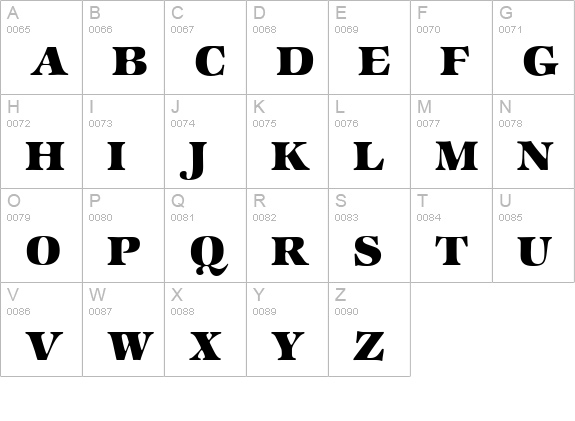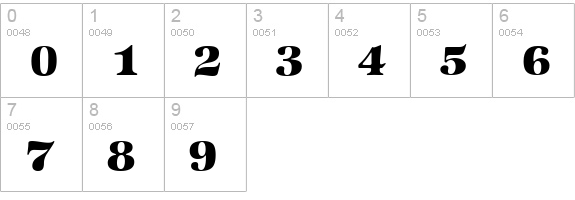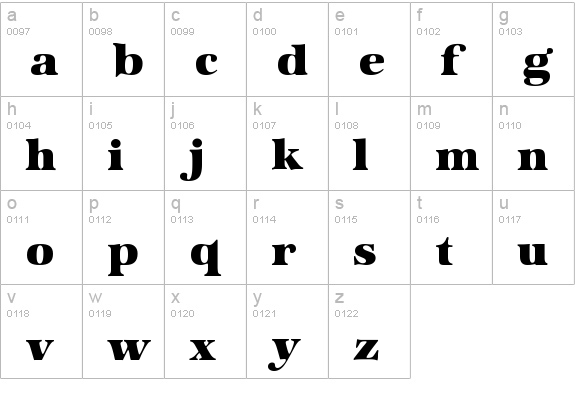
ZabriskieInternational-Heavy-Regular is a heavy, high-impact variant in the ZabriskieInternational typeface family \xE2\x80\x94 well suited to high-impact headlines, posters, and display advertising.
ZabriskieInternational-Heavy-Regular font is a bold and powerful typeface that commands attention with its strong and sturdy letterforms. Perfect for making a statement in headlines or branding materials, this font exudes confidence and professionalism. Its thick strokes and clean lines give it a modern and sleek appearance, making it a versatile choice for a wide range of design projects. And the best part? ZabriskieInternational-Heavy-Regular font is available for free download at FontsMarket.com! This means you can easily access this high-quality font to enhance your designs without any cost. Don't miss out on the opportunity to add ZabriskieInternational-Heavy-Regular font to your font library today and take your projects to the next level.